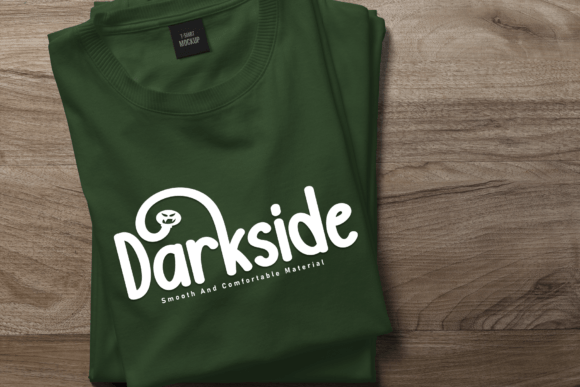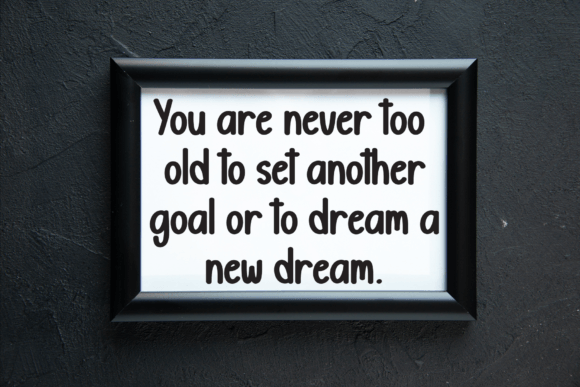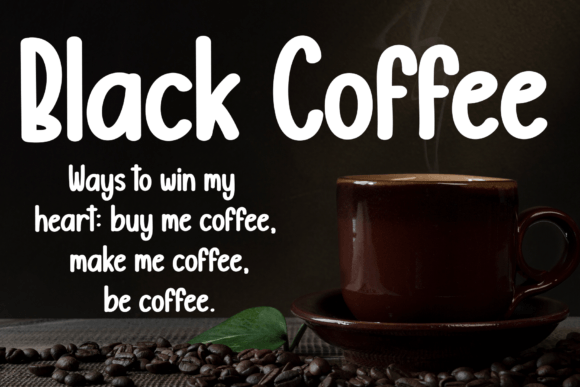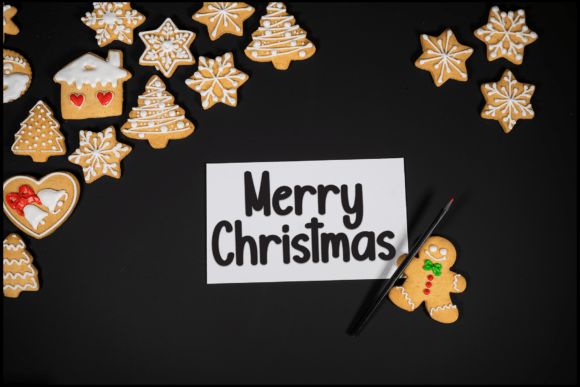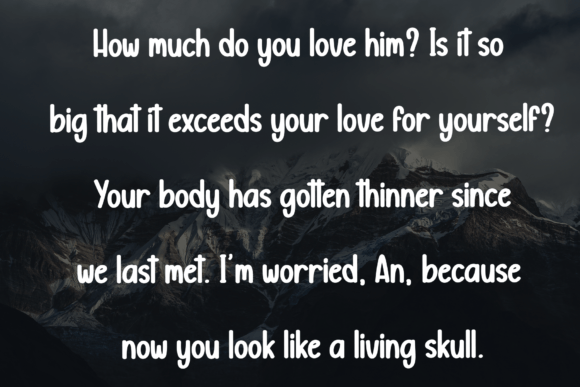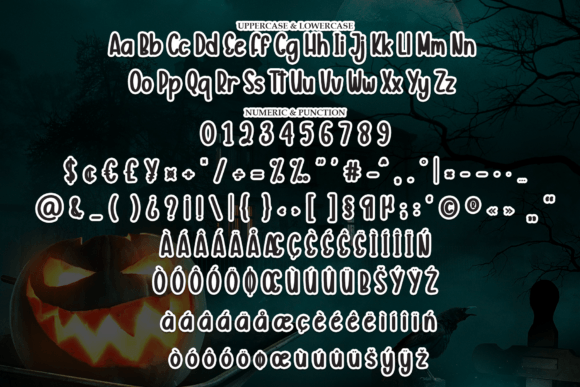
Introduction to Horrible Font
Horrible is a versatile, stylish font perfect for a wide spectrum of applications such as greeting cards, headlines, and many more.
Add it to any of your creative projects, and it will give them a romantic and exquisite feel .
Key Features of Horrible Font
Why Choose Horrible Font?